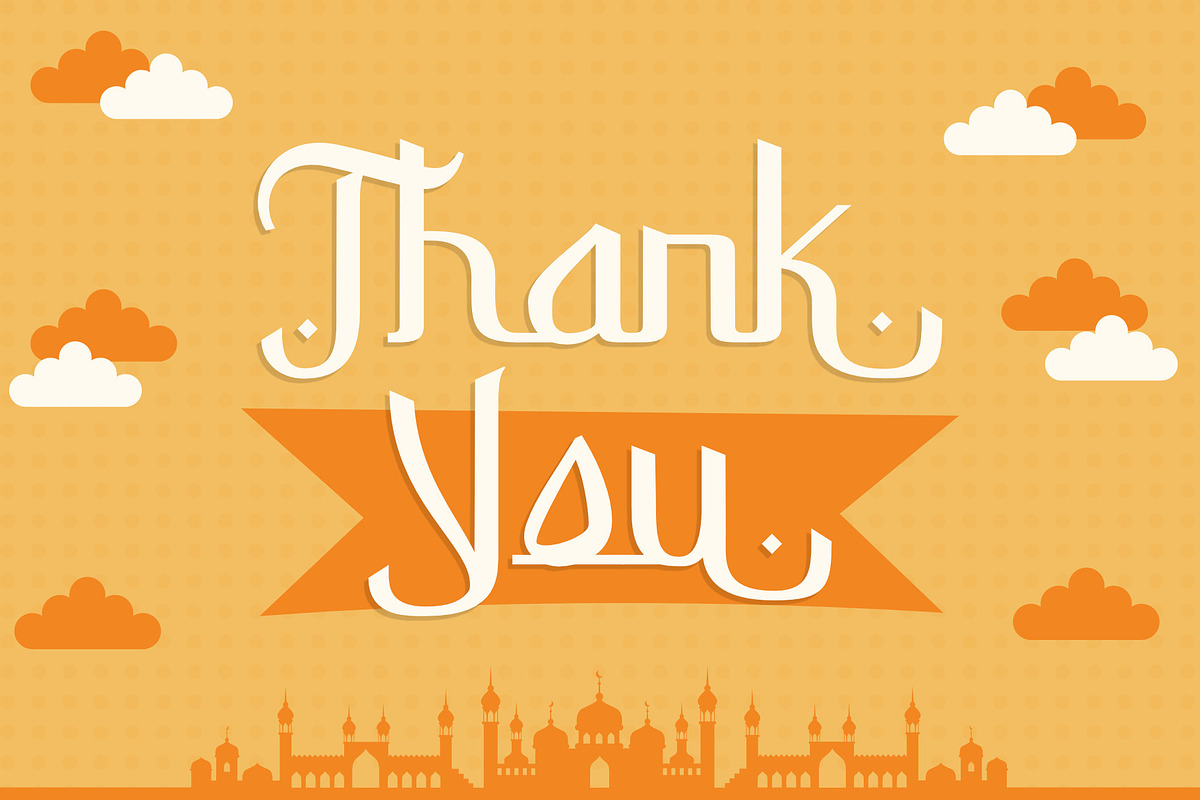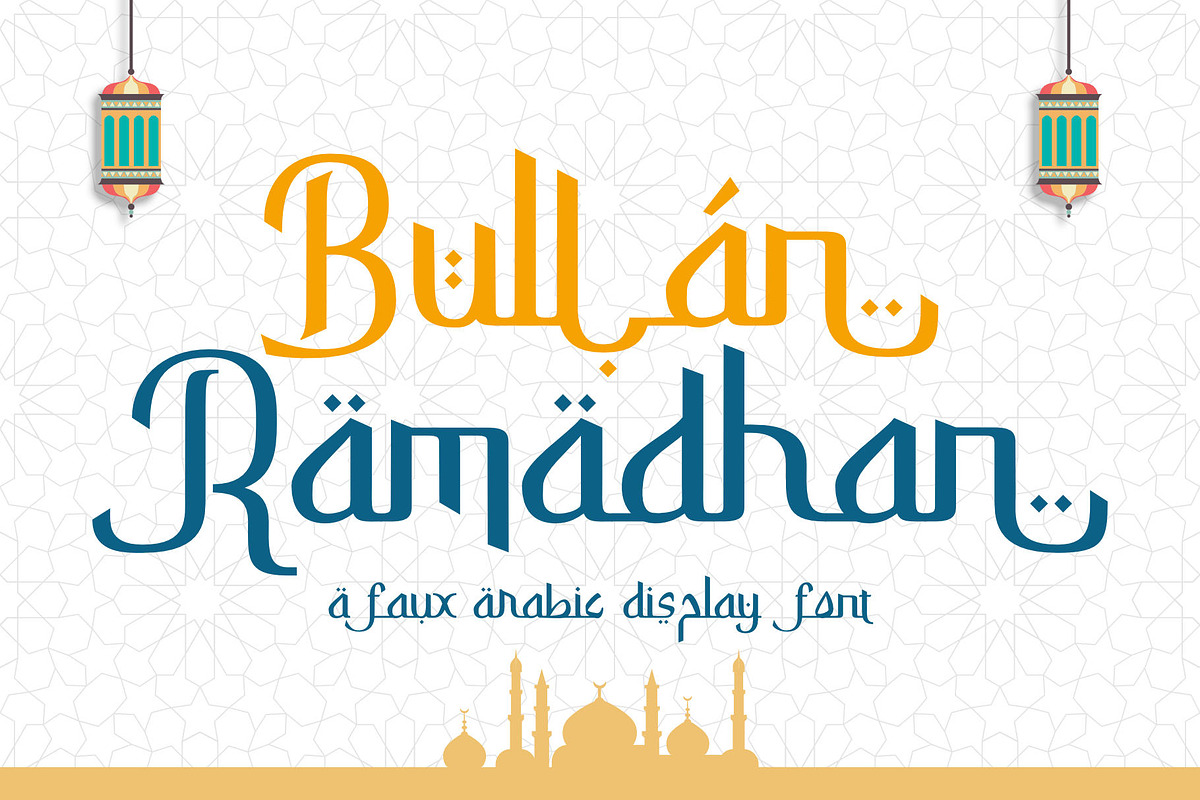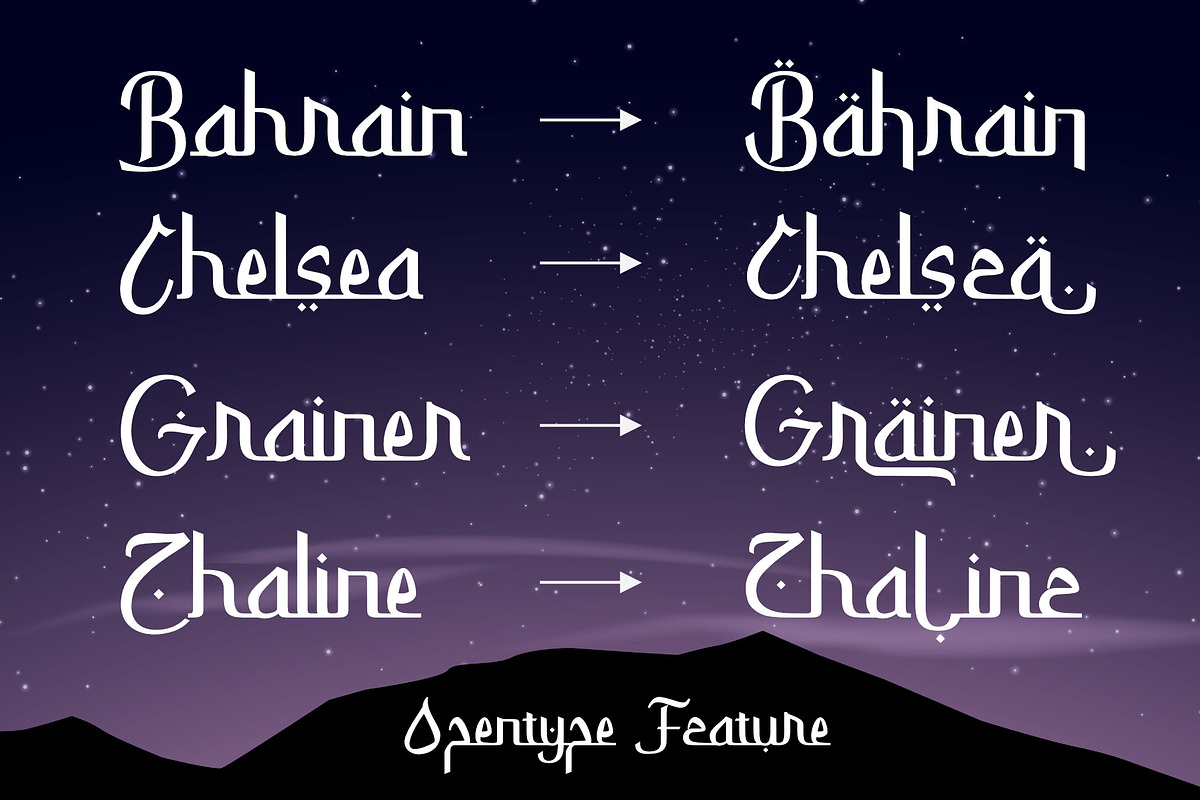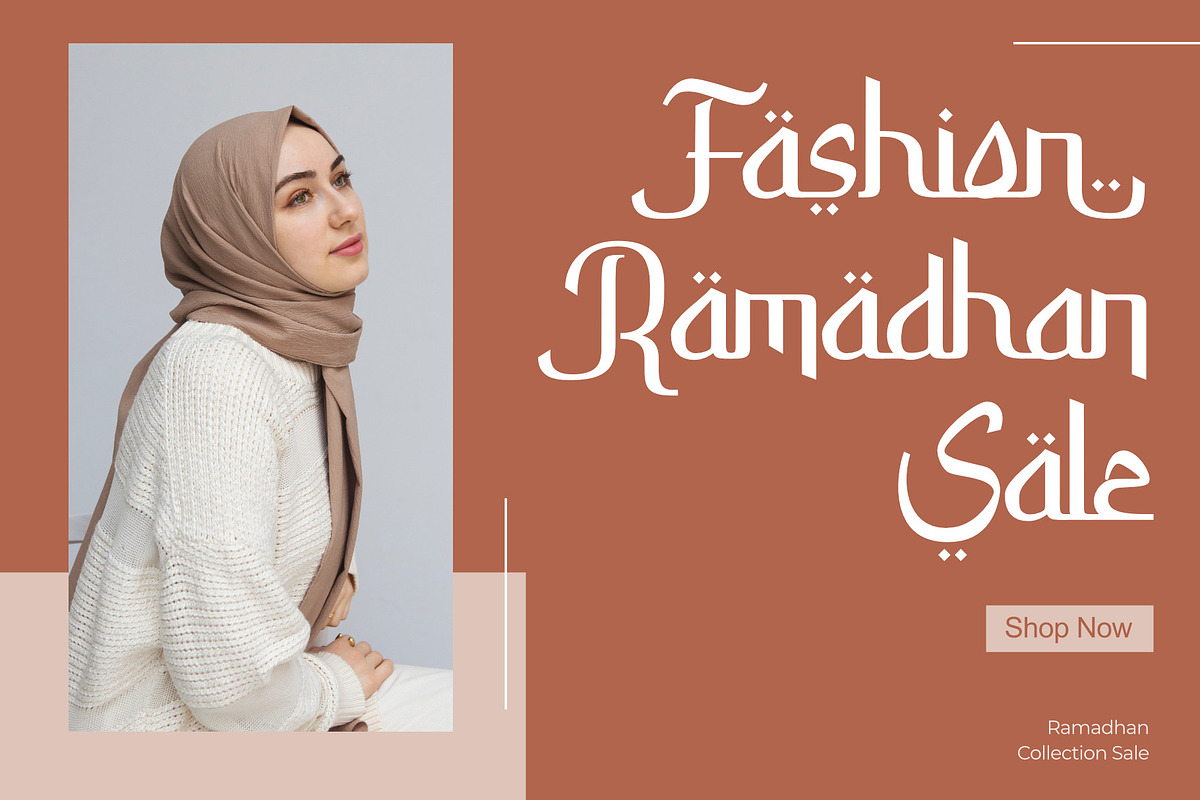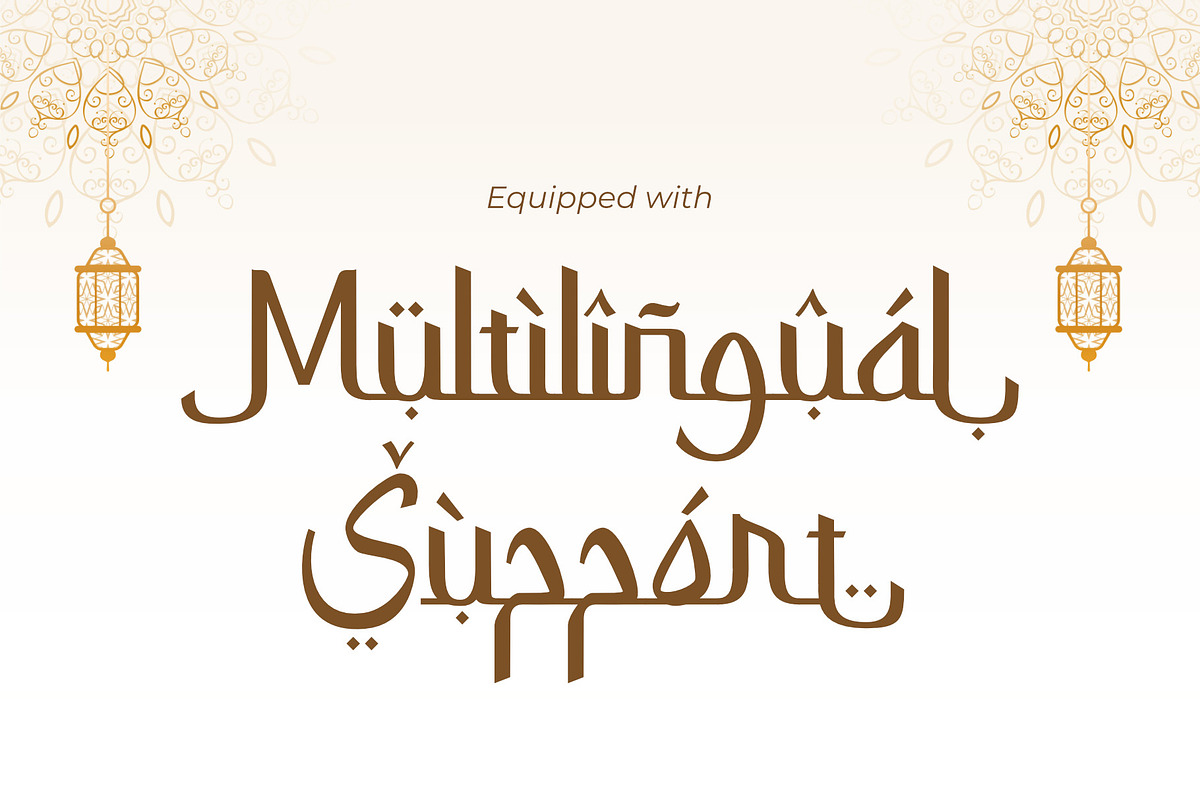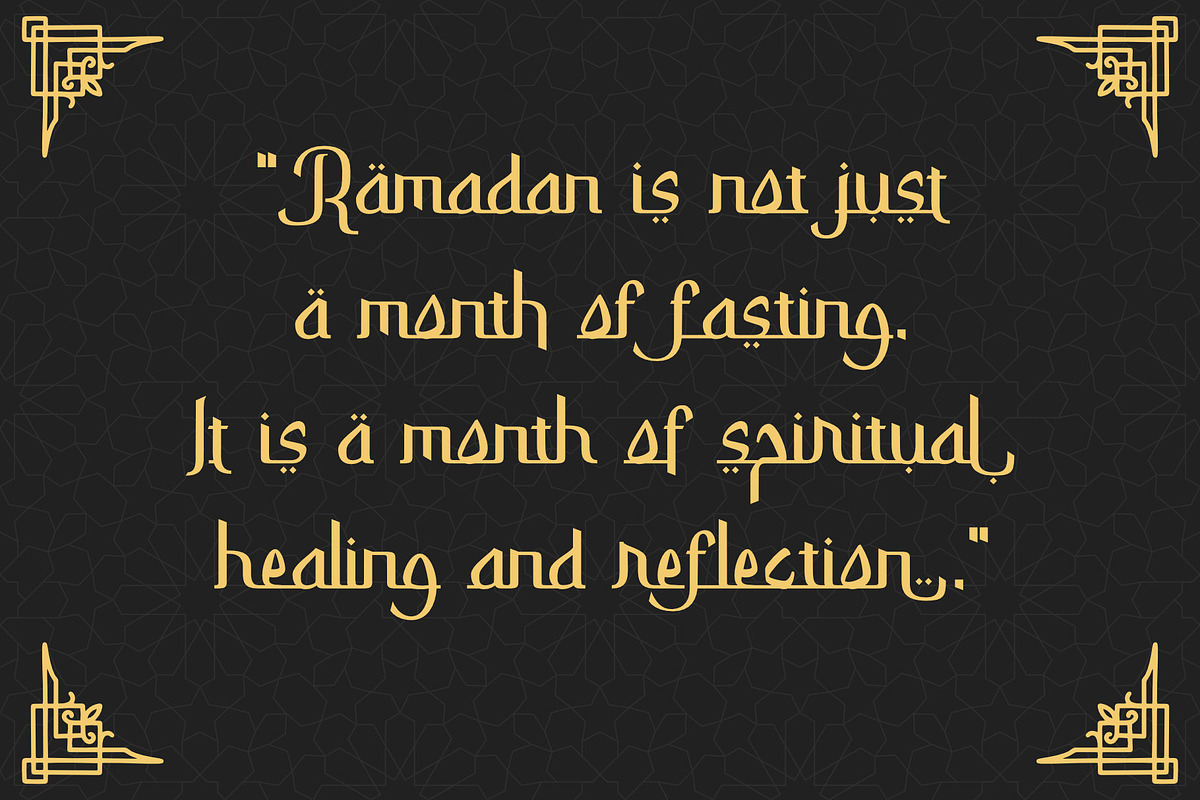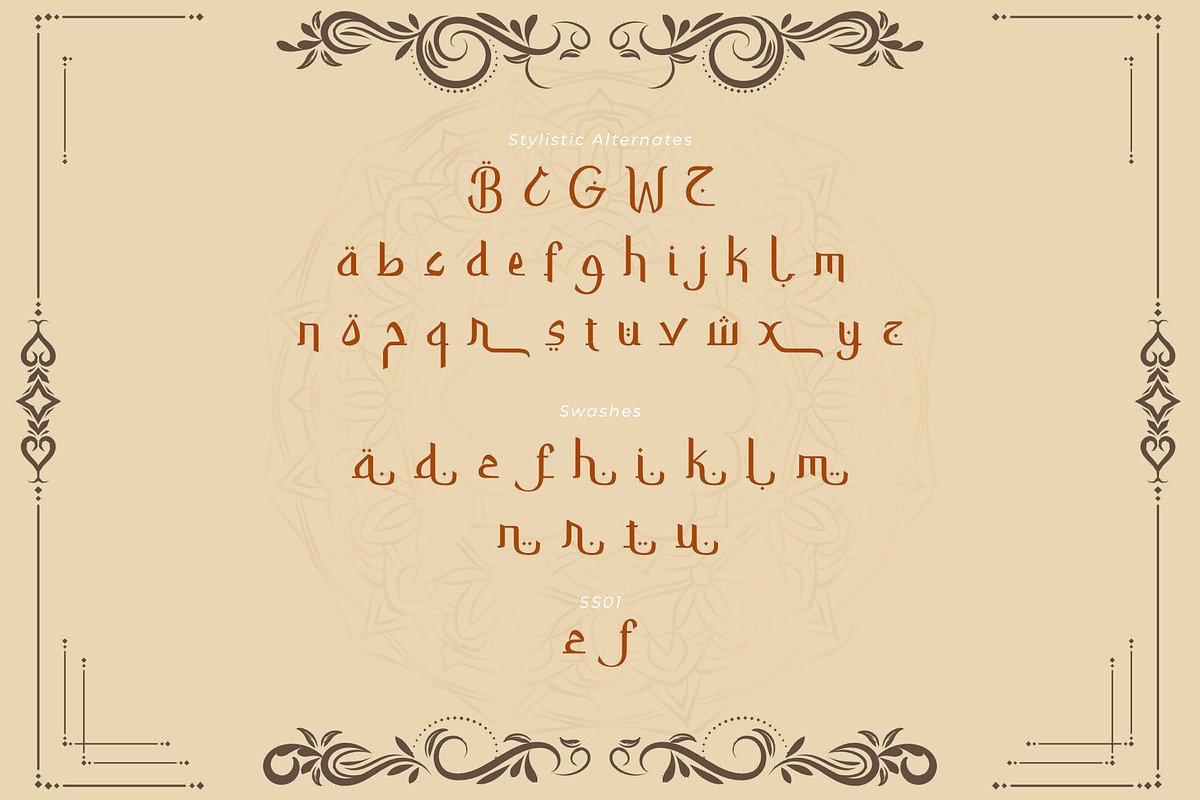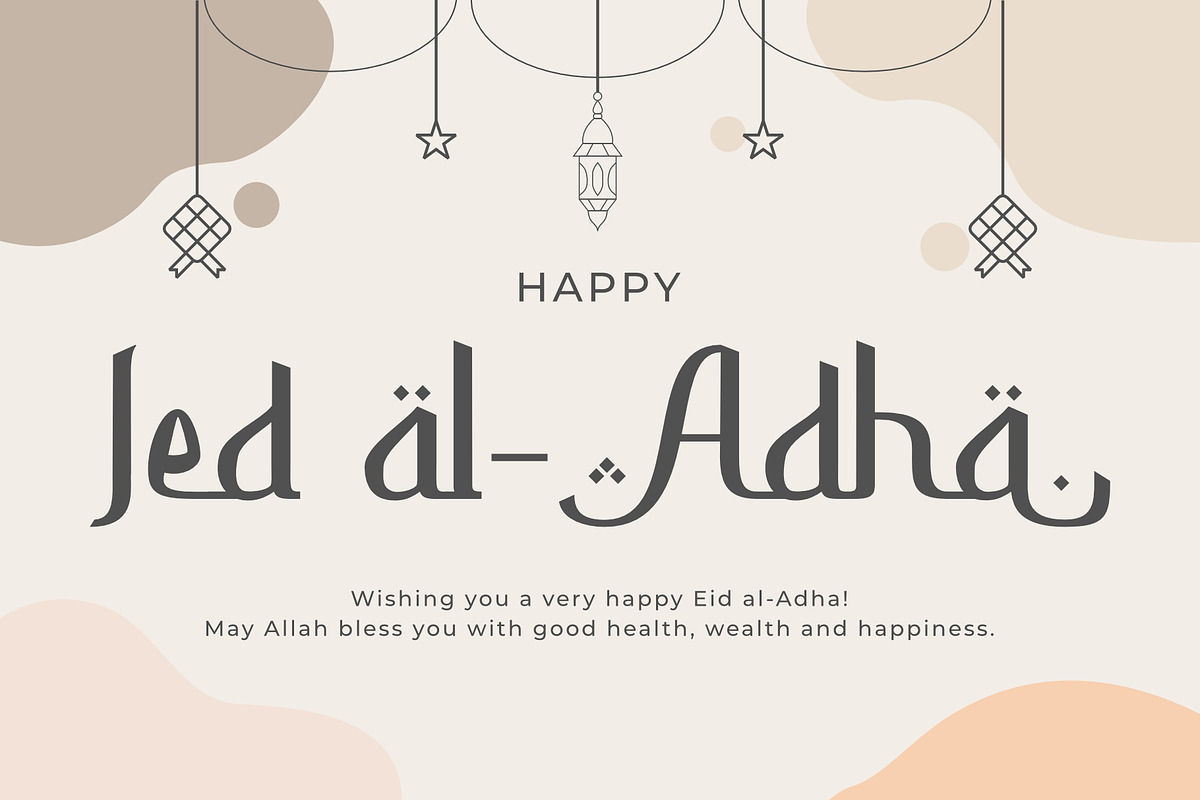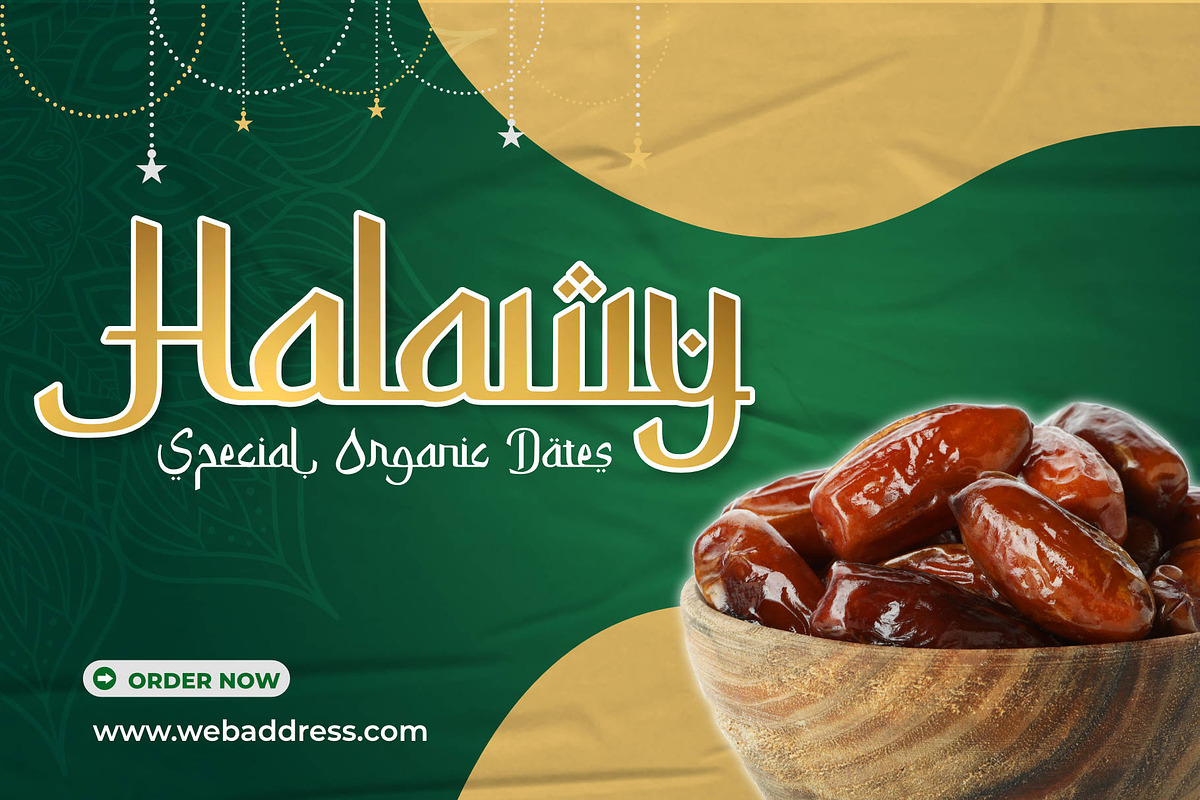
Bullan Ramadhan | A Faux Arabic Font
Bullan Ramadhan is a clean, modern, and faux Arabic display font perfect for branding, logos, business cards, websites, posters, flyers, brochures, and many more. Bullan Ramadhan is a great font for anyone looking for a font with an Arabic feel. What’s Included : - Bullan Ramadhan (OTF, TTF & WOFF) - Alternates and Ligatures - Works on PC & Mac - Simple Installations - PUA Encoded Characters - Multilingual Support If you have any questions about our products, feel free to contact us. Thank You!